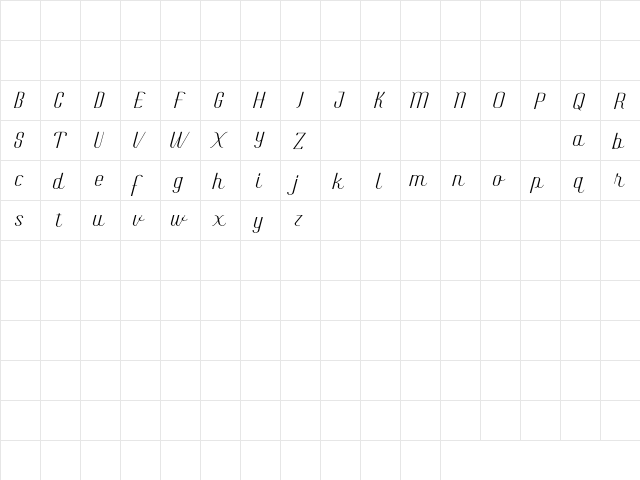
The Rotterdam City Regular
| Designer | Doehantz Studio - Abduhan Fikhri |
Design Context for The Rotterdam City Typeface
The Rotterdam City offers clean, dependable letterforms without strong stylistic allegiance, making it a practical choice for designers who need flexibility.
Pro Tip: Use The Rotterdam City in both headline and body roles to test its range before committing to a single application.